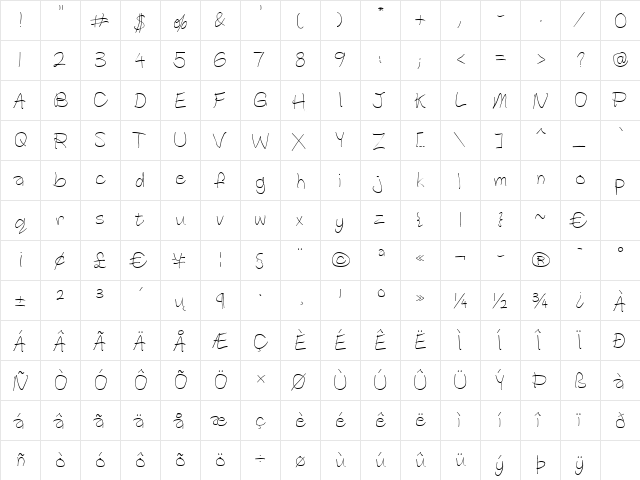
Richfont BT Roman
Design Context for Richfont BT Typeface
Richfont BT is a composed and adaptable typeface that performs quietly and consistently across a wide range of design contexts.
Pro Tip: Use Richfont BT in both headline and body roles to test its range before committing to a single application.